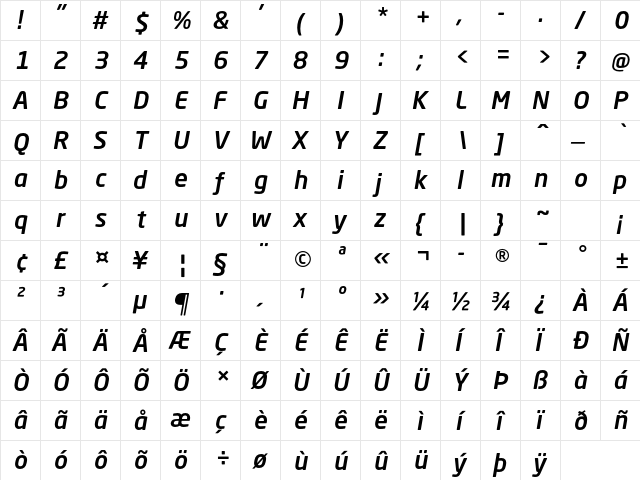
Neo Sans Std Medium Italic Font Preview
Neo Sans Std Medium Italic
Design Context for Neo Sans Std Typeface
Neo Sans Std takes a measured approach to typography — its balanced proportions and neutral character make it a reliable workhorse for both digital and print work. The dynamic lean of this cut emphasises speed and emphasis in any layout.
Pro Tip: Use Neo Sans Std for emphasis, pull quotes, and subheadings where its slanted energy can add rhythm to the layout.